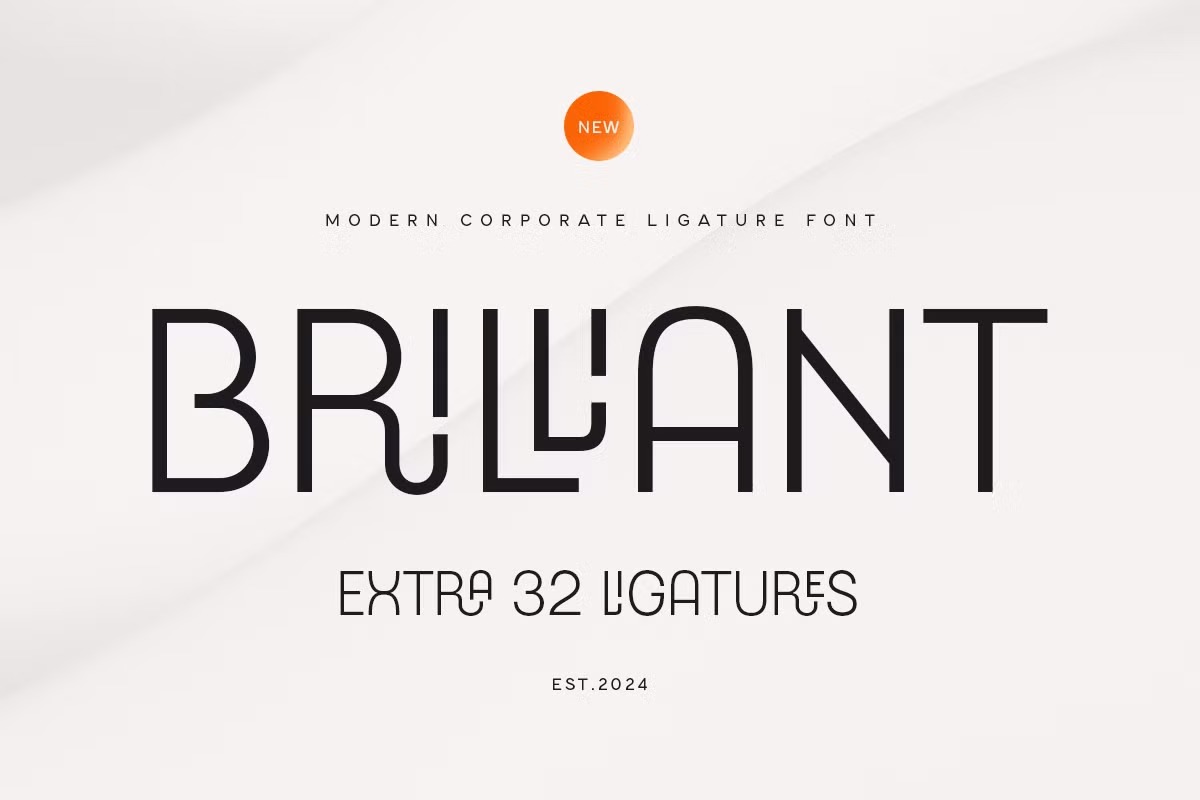
Brilliant - Corporate Ligature Font
Transform your brand with this unique modern ligature font designed specifically for professional corporate needs. Brilliant delivers a distinctive look through its carefully crafted alternates and ligatures in unique shapes, adding significant value to your brand identity. This typeface provides the perfect solution for designers and product owners seeking a more professional and modern aesthetic for their projects. The font includes creative variations through combinations of alternates and li...